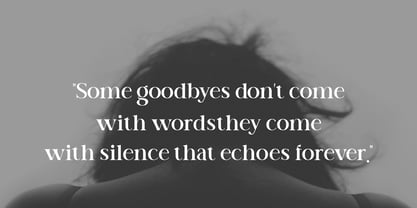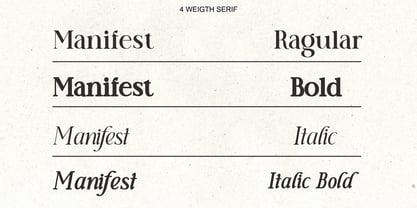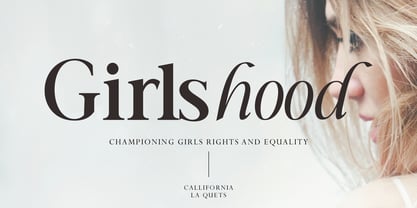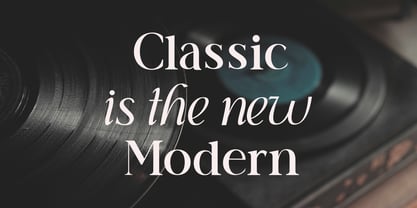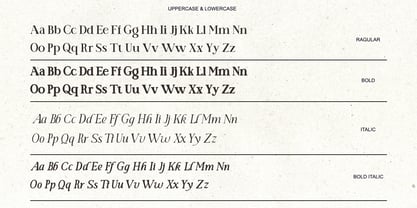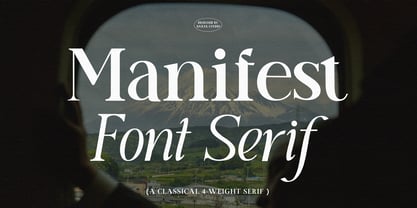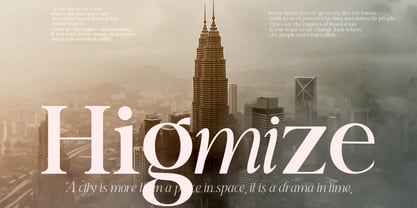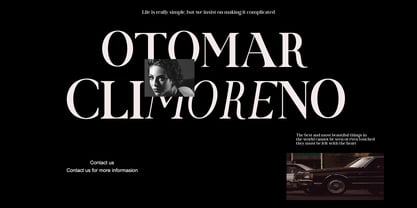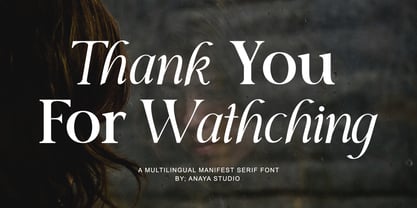
Manifest Font Serif
by Anaya Studio
The Manifest Font Serif Font Family was designed by Julizar Ismail and published by Anaya Studio. Manifest Font Serif contains 4 styles and family package options.
Manifest is a refined display serif font characterized by its soft, rounded serifs that give it a soft and friendly feel. Unlike traditional serif fonts with sharp or angular serifs, Manifest takes a softer, rounded approach, giving it a contemporary yet elegant personality. The rounded serifs blend seamlessly with the clean, geometric structure of the letterforms, creating a harmonious balance between modern aesthetics and classic influences.
The font features gentle curves and a subtle, subtle contrast in stroke thickness, which enhances its readability while maintaining a bold feel at larger sizes. Manifest is perfect for designs that require a sophisticated, yet easy-to-understand typeface. Its soft-edged serifs make it versatile for a variety of high-impact applications such as editorial headlines, brand identities, luxury goods, and creative advertising.
Designers: Julizar Ismail
Publisher: Anaya Studio
Foundry: Anaya Studio
Design Owner: Anaya Studio